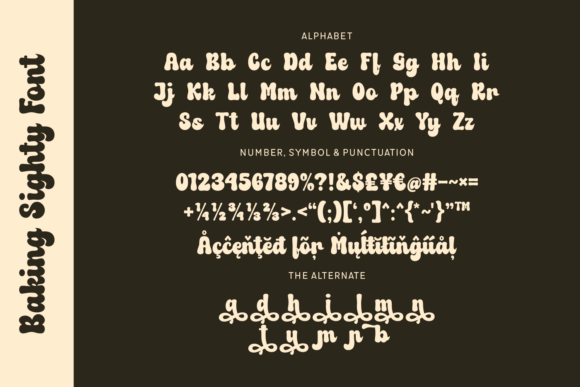
Baking Sighty Font: The Ultimate Retro Script Font for Your Designs
In the world of typography, fonts play a crucial role in conveying the tone and personality of a brand or design. If you’re looking for a font that can add a touch of nostalgia and fun to your projects, look no further than Baking Sighty. This bold retro script font is perfect for creating eye-catching logos, posters, and retro-themed branding that stands out from the crowd.
What is Baking Sighty Font?
Baking Sighty is a unique and stylish font that combines the best of retro and modern typography. Its thick, rounded strokes and vintage-inspired style make it a perfect fit for designs that require a bold and playful touch. Whether you’re creating a logo, poster, or social media graphic, Baking Sighty is sure to add a touch of personality and charm to your project.
Key Features of Baking Sighty Font
- Bold and Playful: Baking Sighty is a bold and playful font that is perfect for headlines, packaging, and creative social media graphics.
- Retro-Inspired: The font’s vintage-inspired style makes it perfect for retro-themed branding and designs.
- Thick and Rounded Strokes: The font’s thick and rounded strokes give it a unique and stylish look that sets it apart from other fonts.
- Easy to Read: Despite its bold and playful style, Baking Sighty is easy to read and understand, making it perfect for use in a variety of designs.
Uses of Baking Sighty Font
Baking Sighty is a versatile font that can be used in a variety of designs, including:
- Logos: The font’s bold and playful style makes it perfect for creating eye-catching logos that stand out from the crowd.
- Posters: Baking Sighty is perfect for creating posters that require a bold and attention-grabbing headline.
- Retro-Themed Branding: The font’s vintage-inspired style makes it perfect for retro-themed branding and designs.
- Packaging: Baking Sighty is perfect for use in packaging designs that require a bold and playful touch.
- Social Media Graphics: The font’s playful and confident character makes it perfect for use in creative social media graphics.
Benefits of Using Baking Sighty Font
There are several benefits to using Baking Sighty in your designs, including:
- Unique and Stylish: Baking Sighty is a unique and stylish font that can add a touch of personality to your designs.
- Easy to Read: The font’s bold and playful style is easy to read and understand, making it perfect for use in a variety of designs.
- Versatile: Baking Sighty is a versatile font that can be used in a variety of designs, from logos and posters to packaging and social media graphics.
- Retro Charm: The font’s vintage-inspired style adds a touch of retro charm to any project, making it perfect for retro-themed branding and designs.
Baking Sighty is a bold and playful font that is perfect for adding a touch of nostalgia and fun to your designs. Its thick, rounded strokes and vintage-inspired style make it perfect for logos, posters, and retro-themed branding. With its easy-to-read style and versatile uses, Baking Sighty is a great addition to any designer’s font collection.
- What is Baking Sighty font? Baking Sighty is a bold retro script font that brings a nostalgic yet fun vibe to your designs.
- What is Baking Sighty font used for? Baking Sighty is perfect for logos, posters, retro-themed branding, packaging, and creative social media graphics.
- Is Baking Sighty easy to read? Yes, Baking Sighty is easy to read and understand, making it perfect for use in a variety of designs.